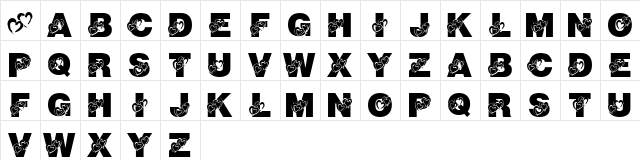
LMS School Girl Crush Regular
Design Context for LMS School Girl Crush Typeface
LMS School Girl Crush is a composed and adaptable typeface that performs quietly and consistently across a wide range of design contexts.